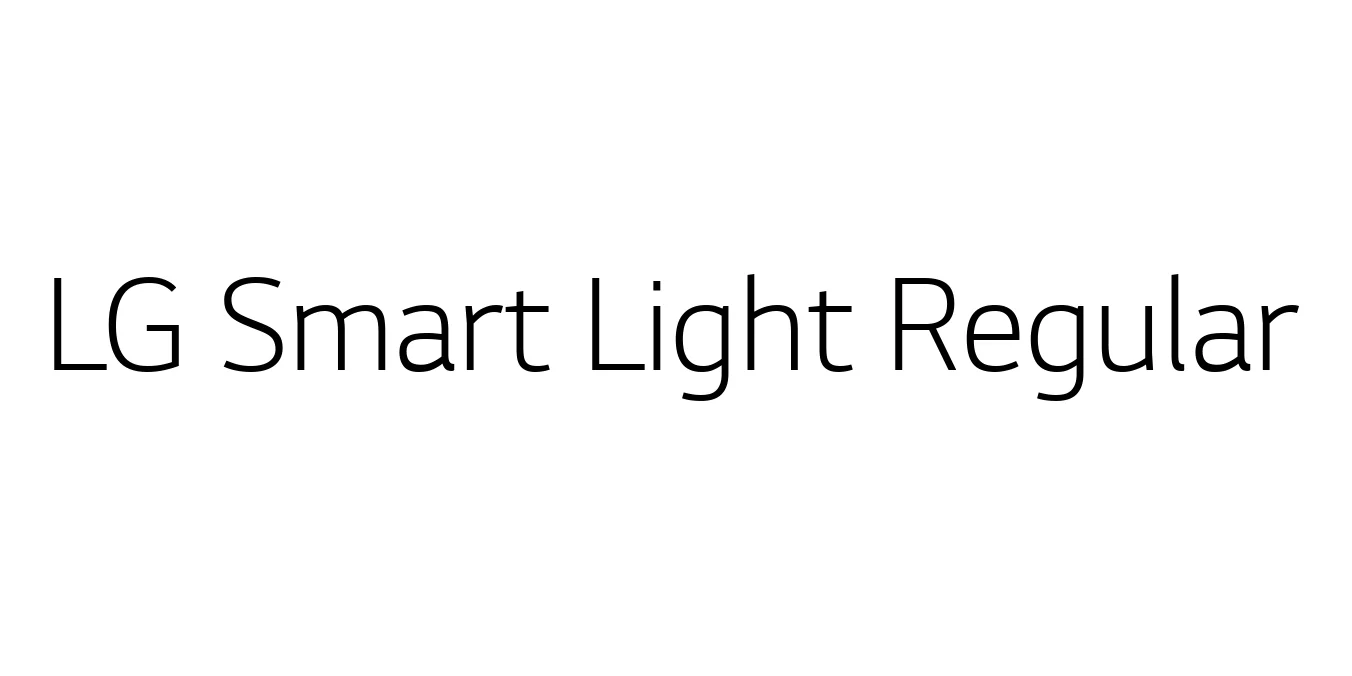
LG Smart Light Regular
Designed by LG Electronics Design Team
LG Smart Light Regular is a sophisticated and highly legible sans-serif typeface developed as a cornerstone of LG Electronics corporate identity. Designed to represent the brand's philosophy of modern innovation, the font features a geometric structure with subtle humanist influences that allow for maximum clarity across both digital and physical platforms.
The typeface is particularly effective in user interface (UI) design, where its light weight provides a clean and airy aesthetic without sacrificing readability. It is widely utilized in smart home applications and mobile software, ensuring a consistent and professional look that aligns with LG's 'Life's Good' brand messaging on a global scale.
LG Smart Light Regular Best Uses
Ideal for official company documentation and high-level marketing materials.
Perfect for smart appliance screens, mobile apps, and dashboard displays.
Great for tech-focused websites looking for a sleek, modern, and uncluttered look.
Suitable for posters and digital assets that require a lightweight, professional typeface.